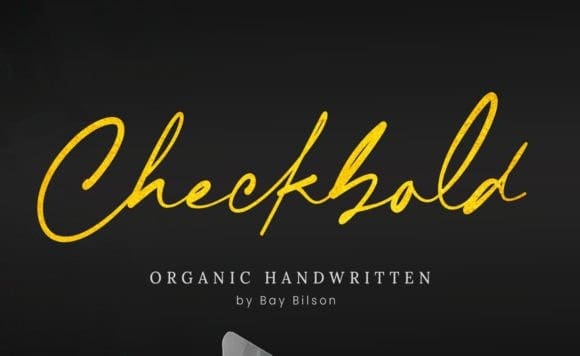
Checkbold Script Font
Checkbold Script Font, is a handwritten font with a smooth, modern, and organic design. Add it to your logos, brands, products, websites, and more, and they will capture everyone’s attention!